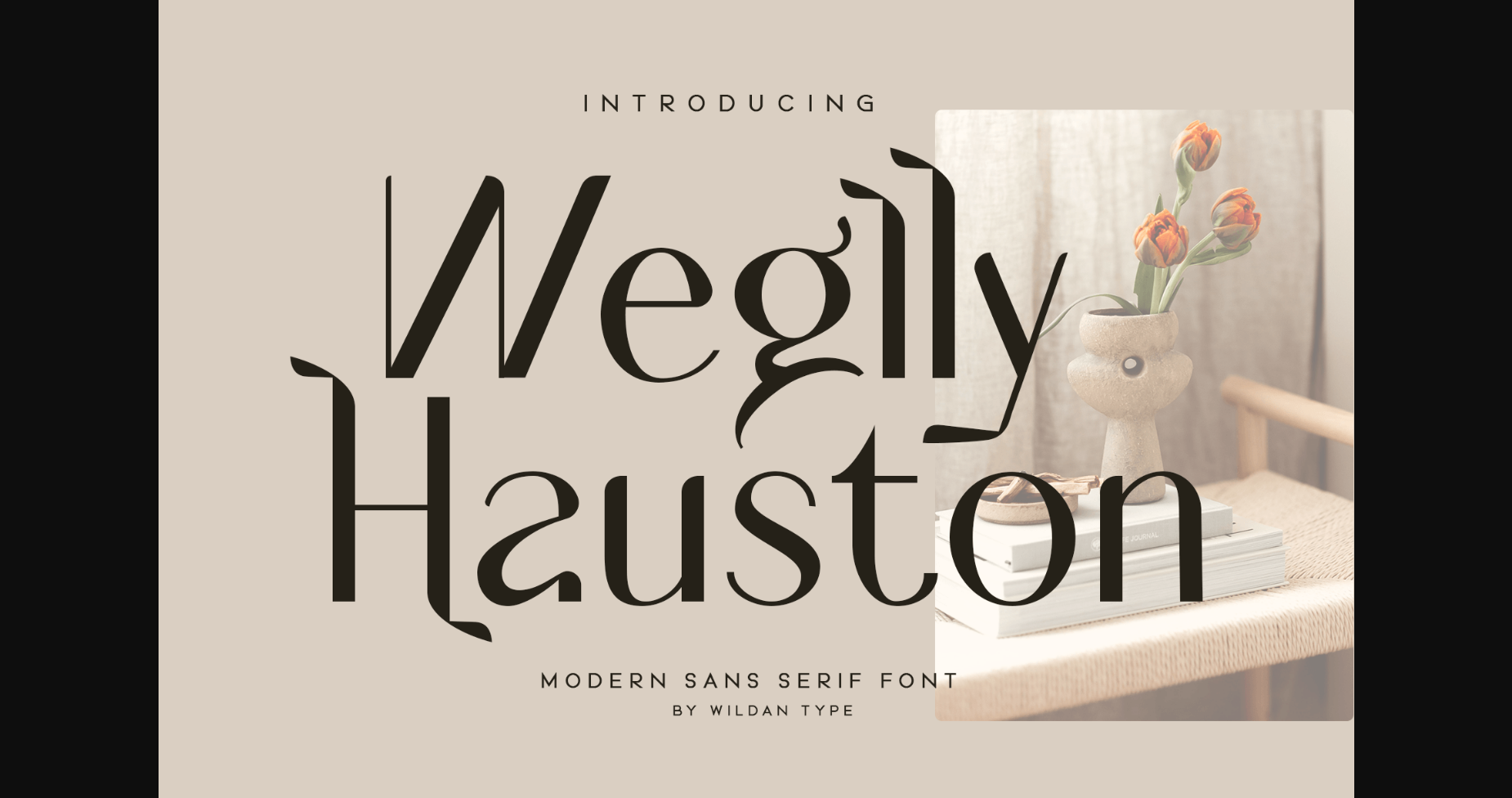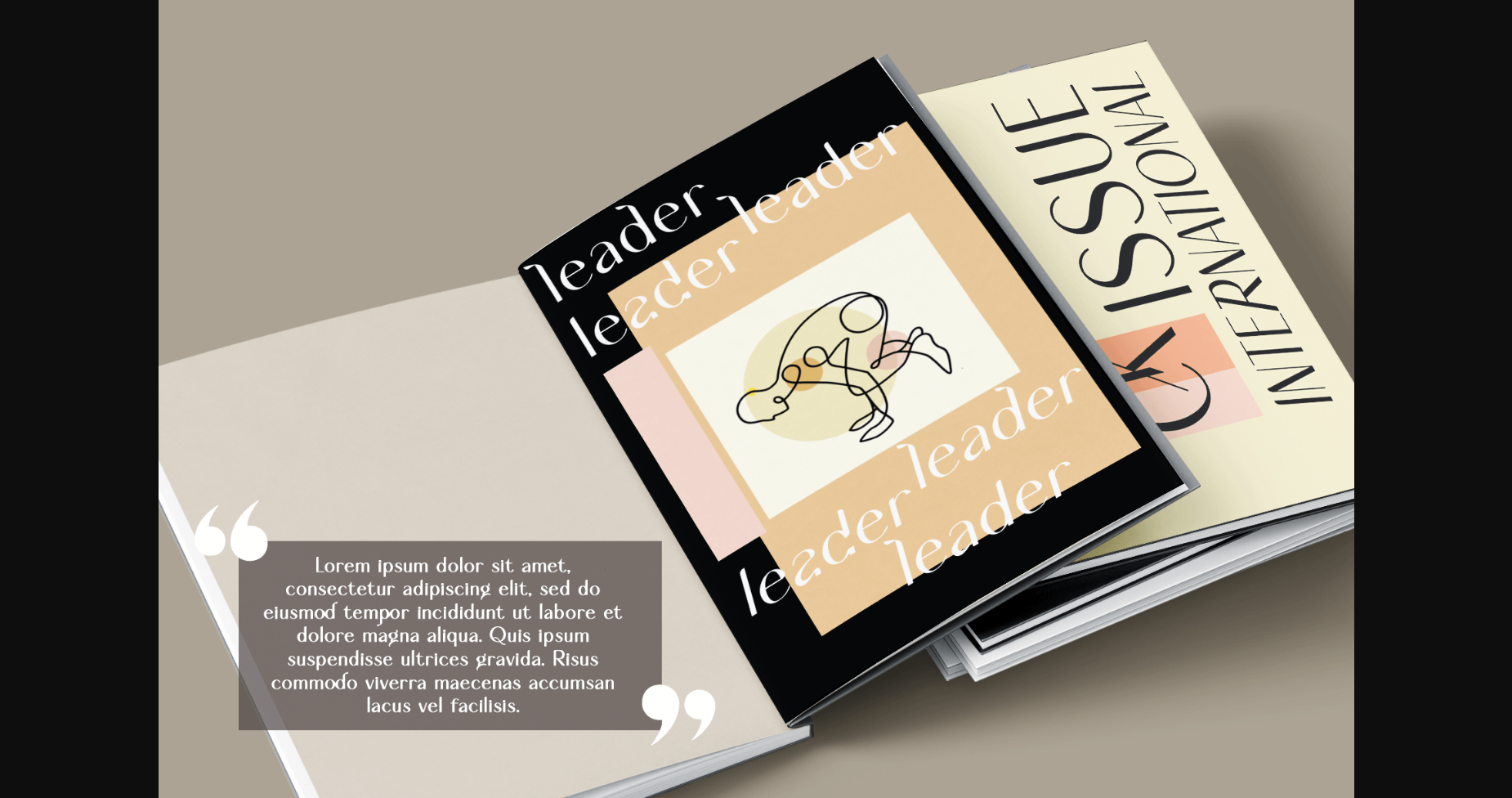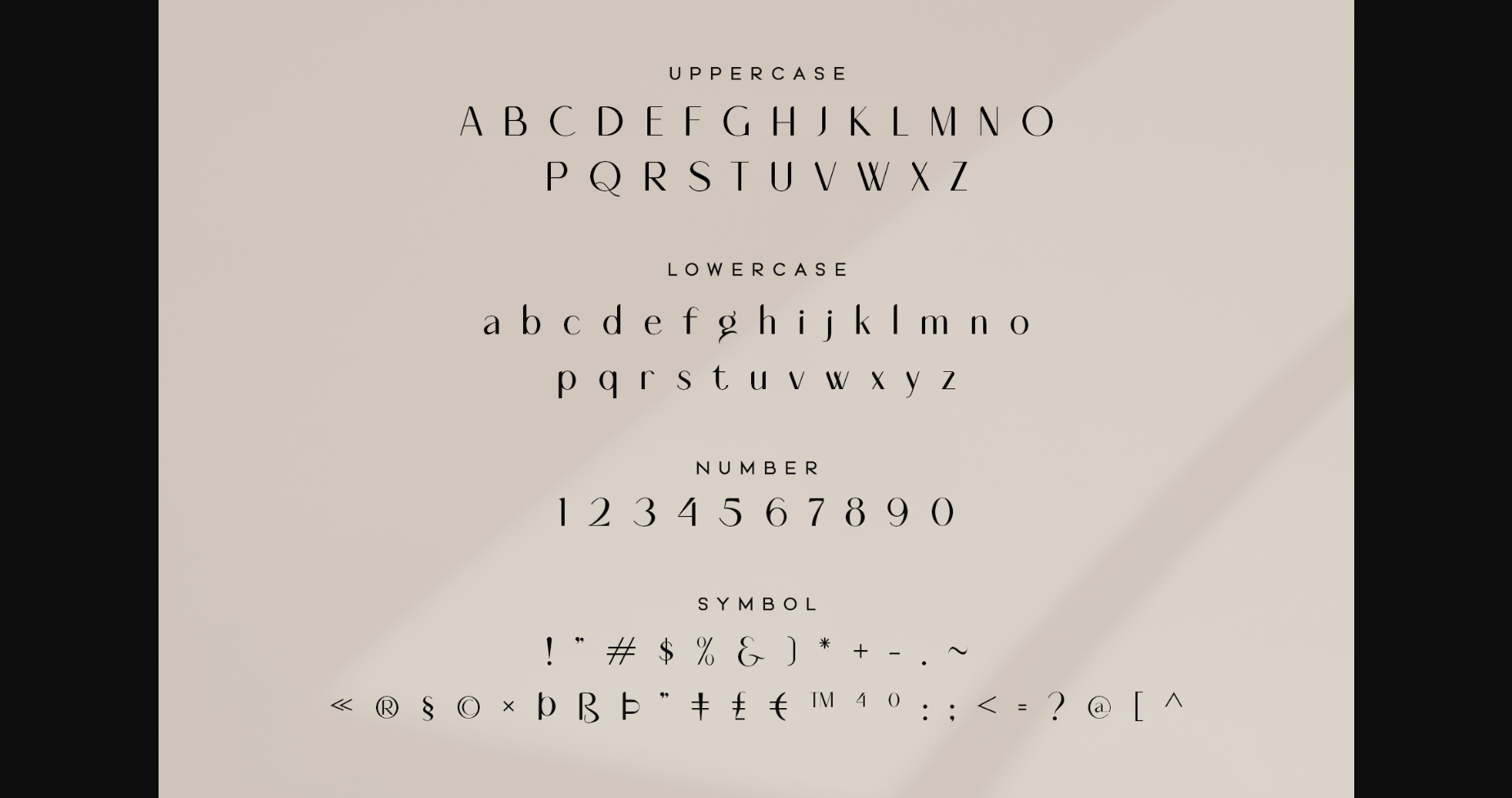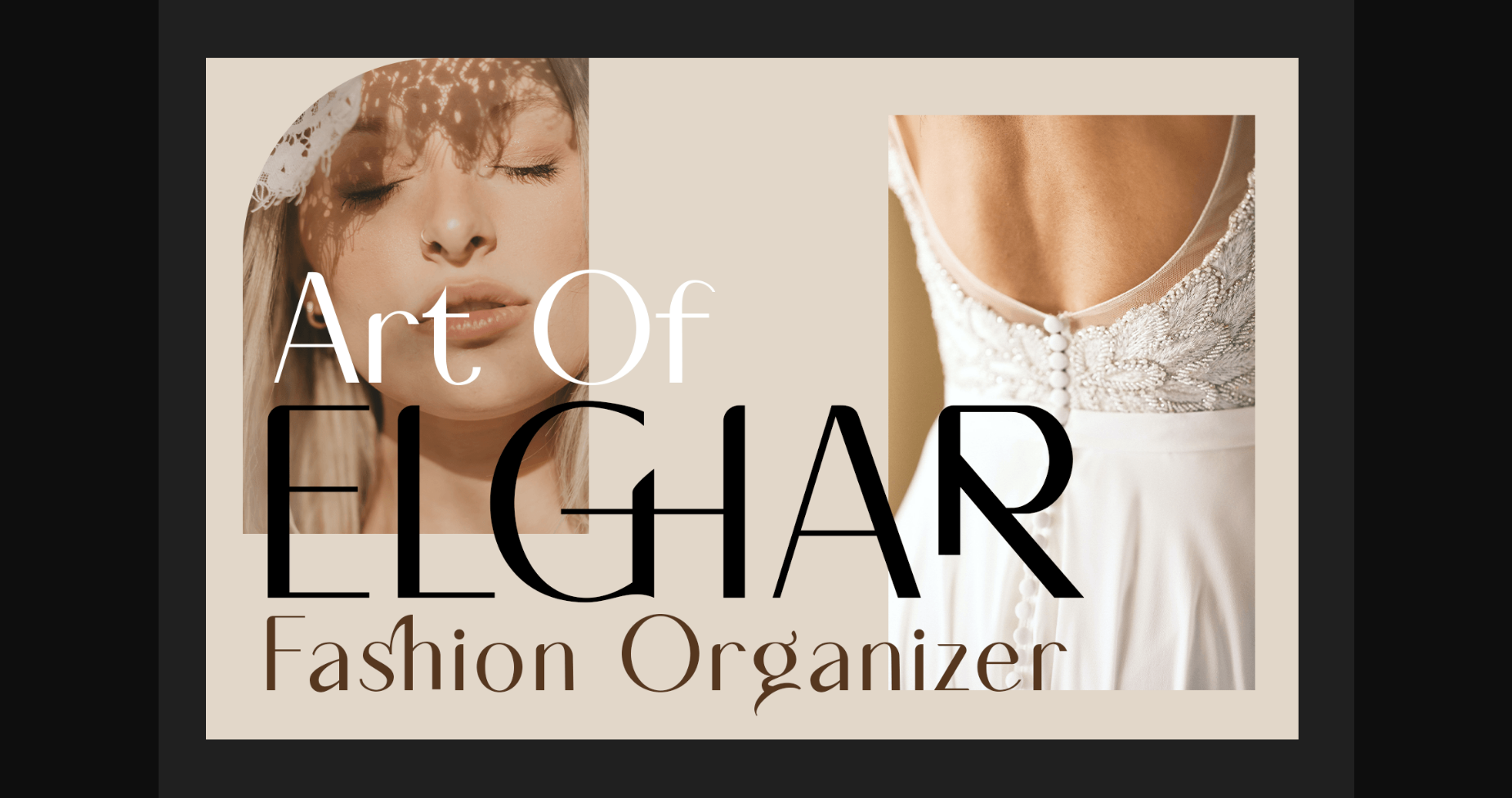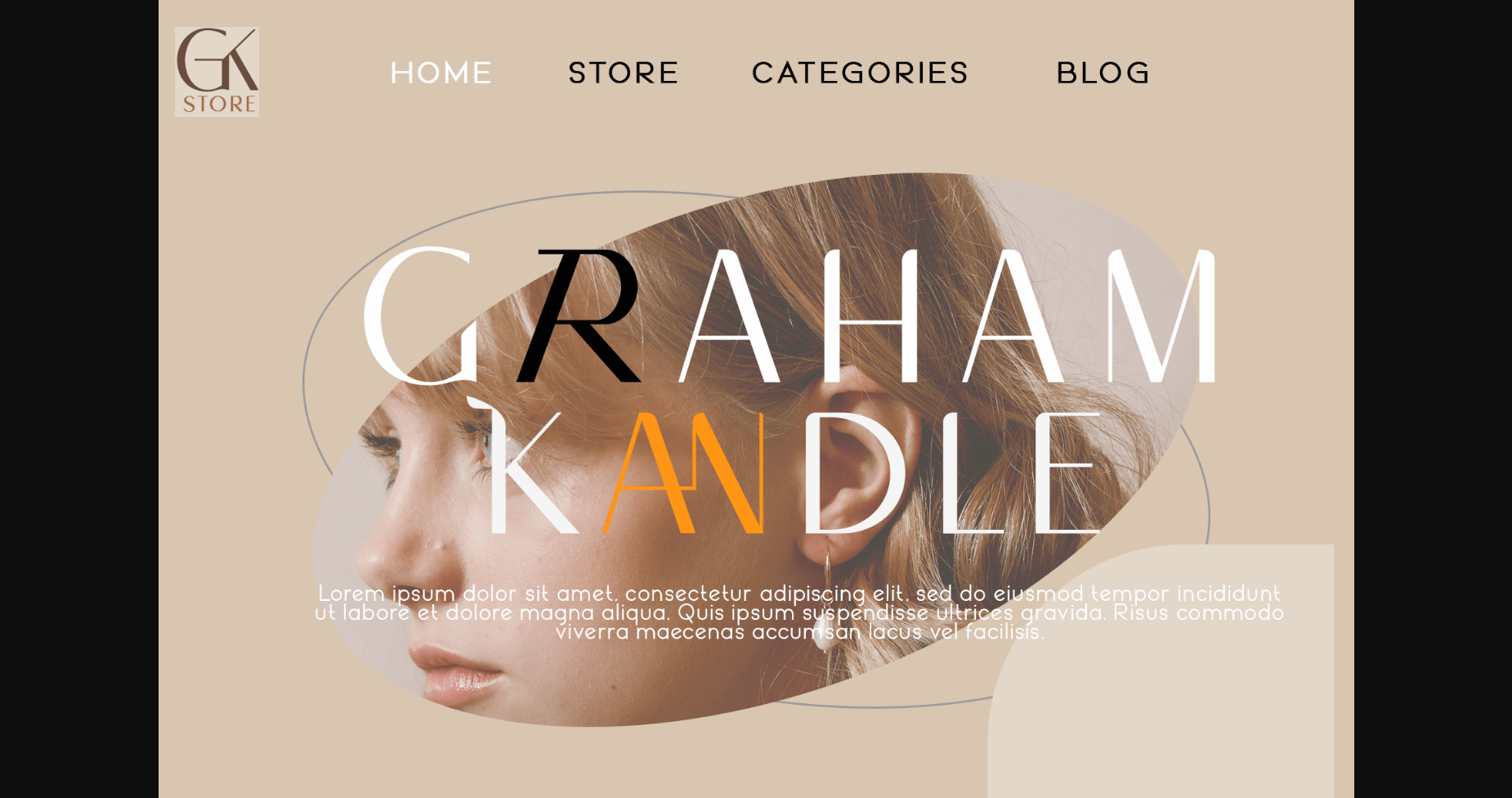
Weglly Hauston Font
About Weglly Hauston Font
Weglly Hauston is a modern, simple, and impressive sans serif font perfect for logos, signs, fashion, editorials, branding projects, clothing. branding, packaging, magazines, advertising, T-shirts, postcards, and many more. Fall in love with its versatility, and let it bring your creative projects to the highest level!